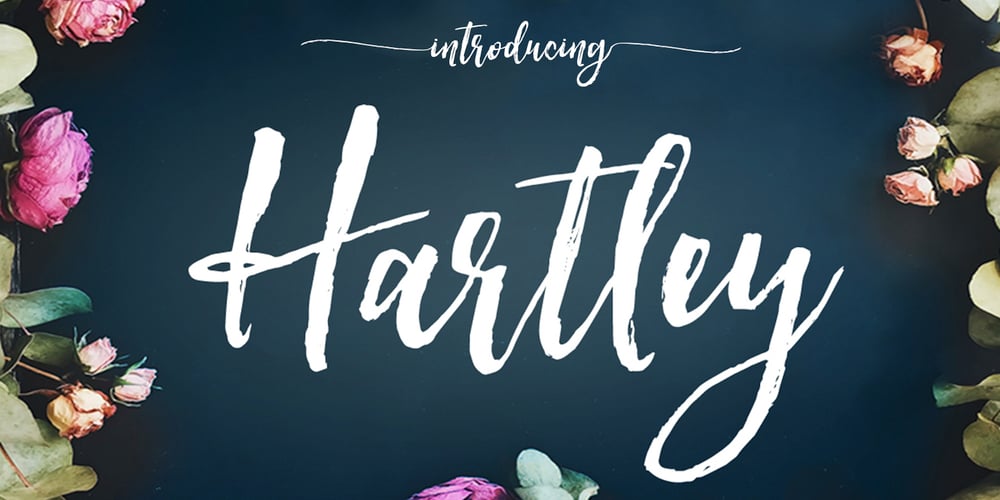
Hartley Font Family was designed by Angie Baldelomar and published by Angie Makes. Hartley contains 5 styles and family package options. Introducing Hartley, a fabulous dry textured brush script font with swashes + alternates galore. Hartley has a wonderful flow with a playful dancing baseline, unique pairs, and extras. Use Hartley for all of your hand lettering projects like invitations, greeting cards, promotional materials, websites, and branding that need that hand brushed lettering vibe. Commercial use permitted. Hartley includes 15 front and end swashes that attach seamlessly to upper and lowercase letterforms. Flower doodles, realistic brush textured strokes, doodles, and more are also included. Hartley is encoded for Private Use Area which means you don’t need any fancy software to access the swashes and extras in this font. *Tutorial on using hidden private use area characters is here: angiemakes.com/secret-to-add-swashes-extras-to-your-fonts-meet-the-private-use-area-for-fonts/ Here’s what’s included in the download: -Hartley Regular – A fabulous, hand brushed calligraphy font .OTF font file – Hartley Alternates – A full set of alternate upper and lowercase letters .OTF font file – Hartley Slanted – A slightly slanted version of Hartley .OTF font file – Hartley Alternates Slanted – A slightly slanted version of Hartley Alternate Characters .OTF font file – Hartley Extras – Extra doodles and brushed lines and splotches .OTF font with image map included Open Type features include unique pairs like ll, pp, dd, etc. Turn on Stylistic Alternates to easily use the alternate lowercase and uppercase letters in the font. Happy Making!